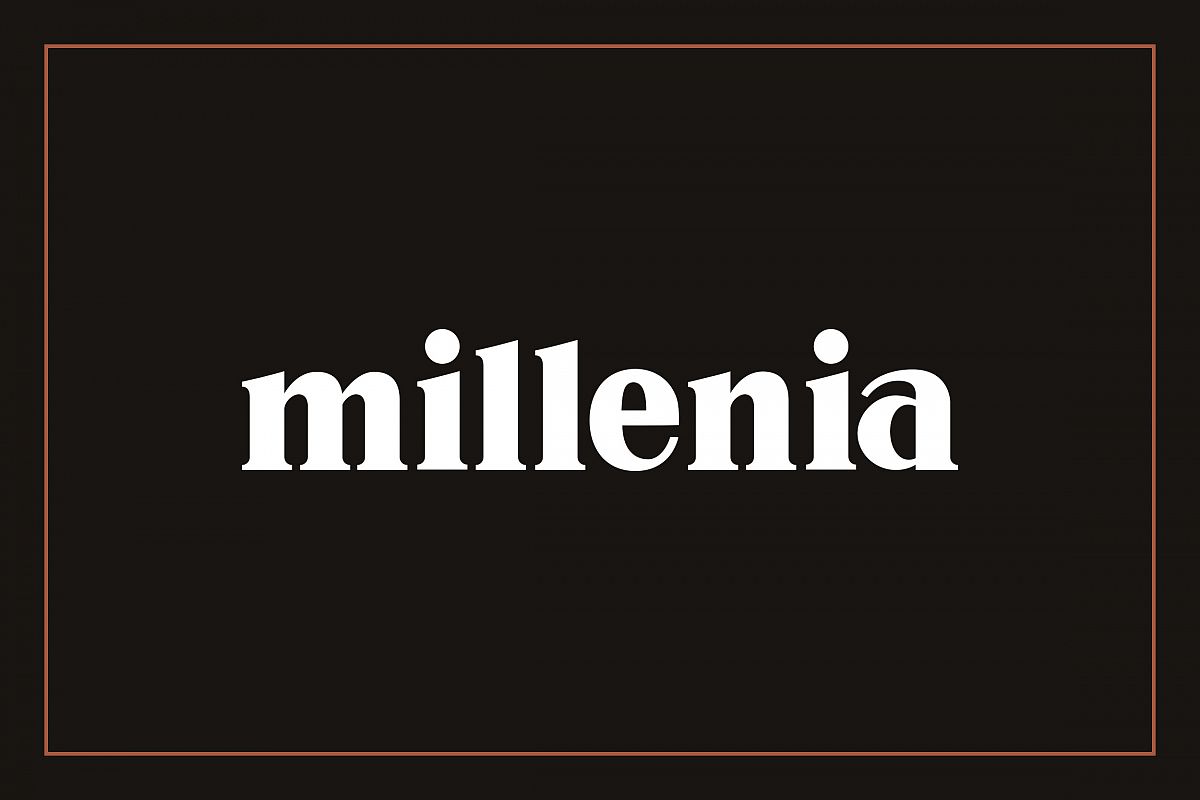
Millenia - Serif Font
Millenia is a shorty serif font with beautiful curves perfect for editorial, logos and packing. It comes in uppercase and lowercase and supports multi-language.